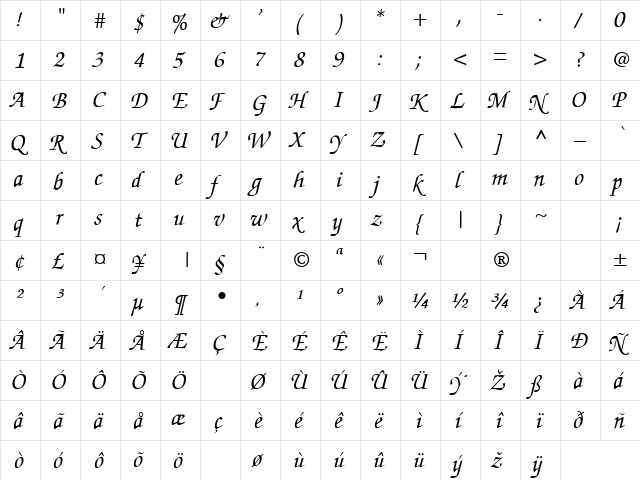
Uf Zurix Italic
Design Context for Uf Zurix Typeface
Uf Zurix takes a measured approach to typography — its balanced proportions and neutral character make it a reliable workhorse for both digital and print work. The dynamic lean of this cut emphasises speed and emphasis in any layout.